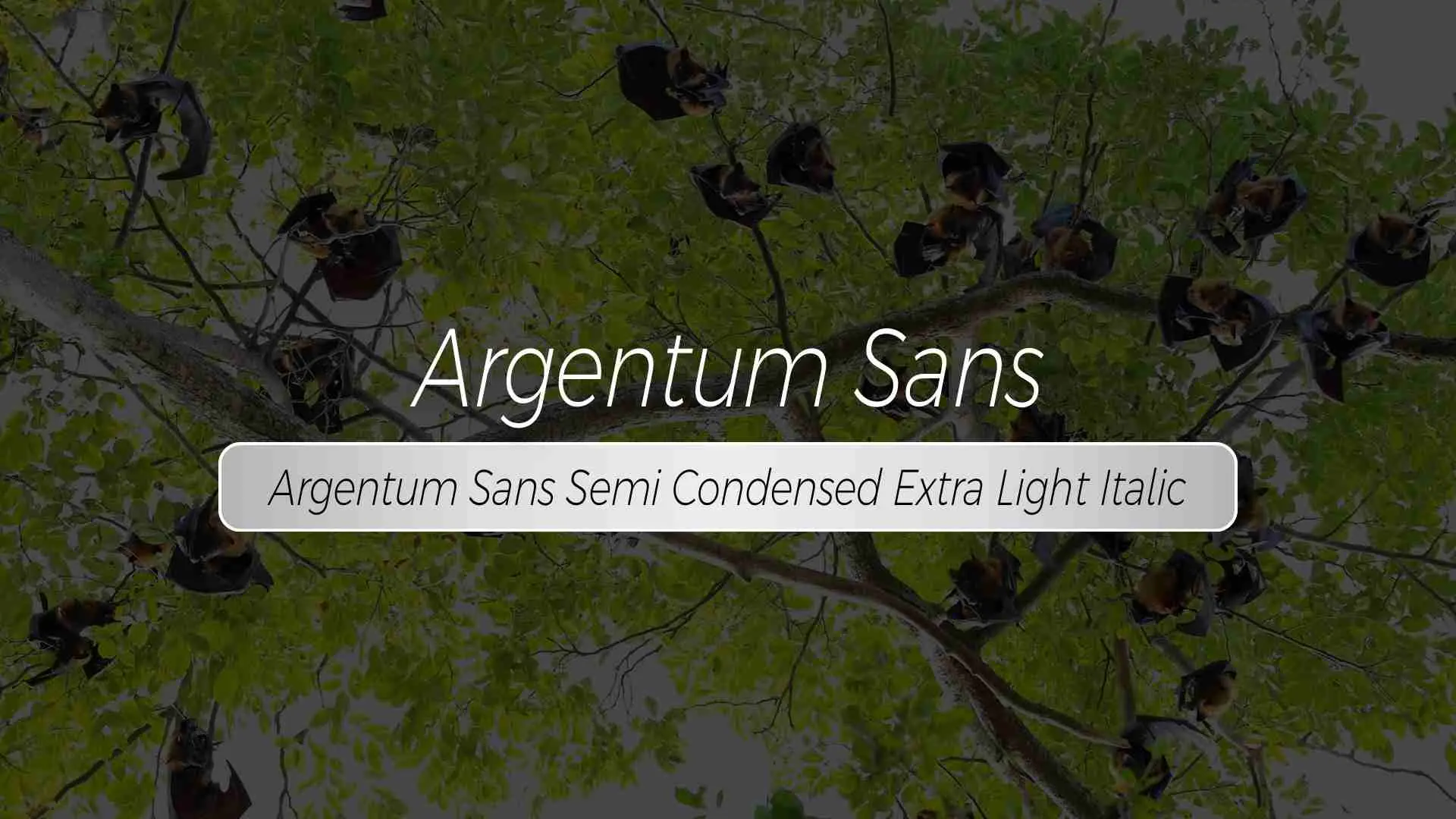
Argentum Sans Semi Condensed Extra Light Italic
The font Argentum Sans Semi Condensed Extra Light Italic, designed by Julieta Ulanovsky and Cristiano Sobral, falls under the Sans Serif category & Argentum Sans font family. Its smooth, flowing letterforms make it a versatile choice for projects that require both elegance and readability. Argentum Sans is particularly well-suited for Branding, Body Text, Headlines, UI/UX Design, Display Text and Corporate Identity. With its balance of simplicity and decorative appeal, this font brings a polished touch to both personal and professional designs.